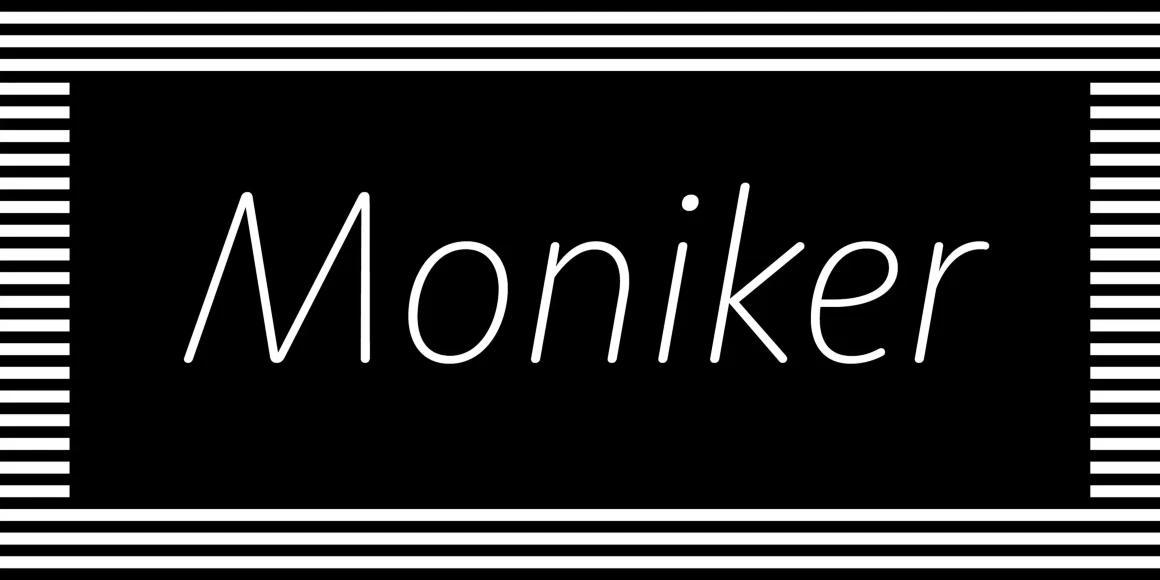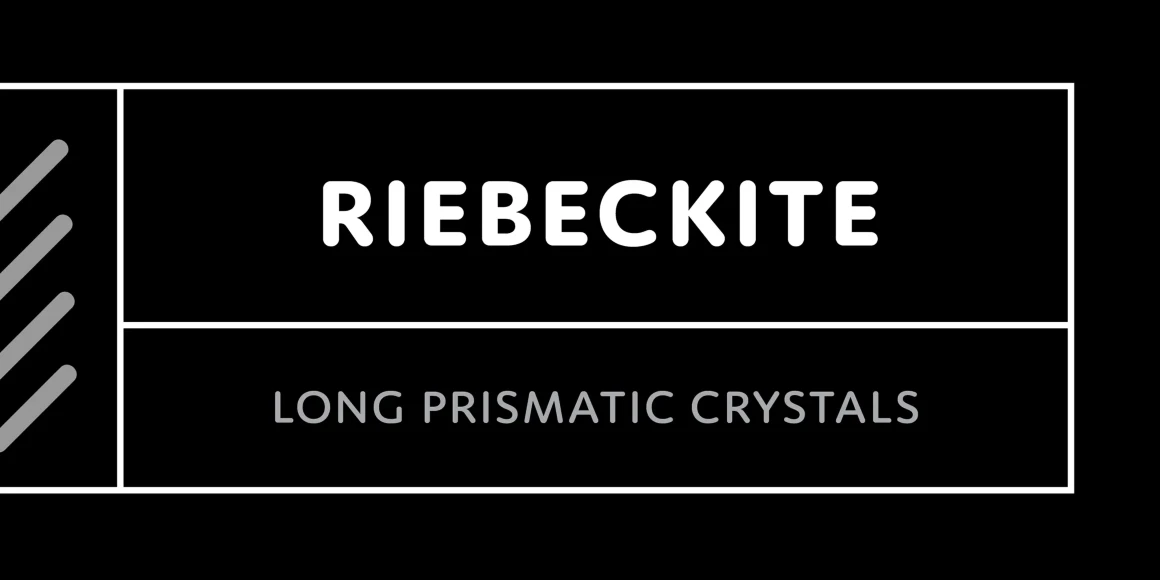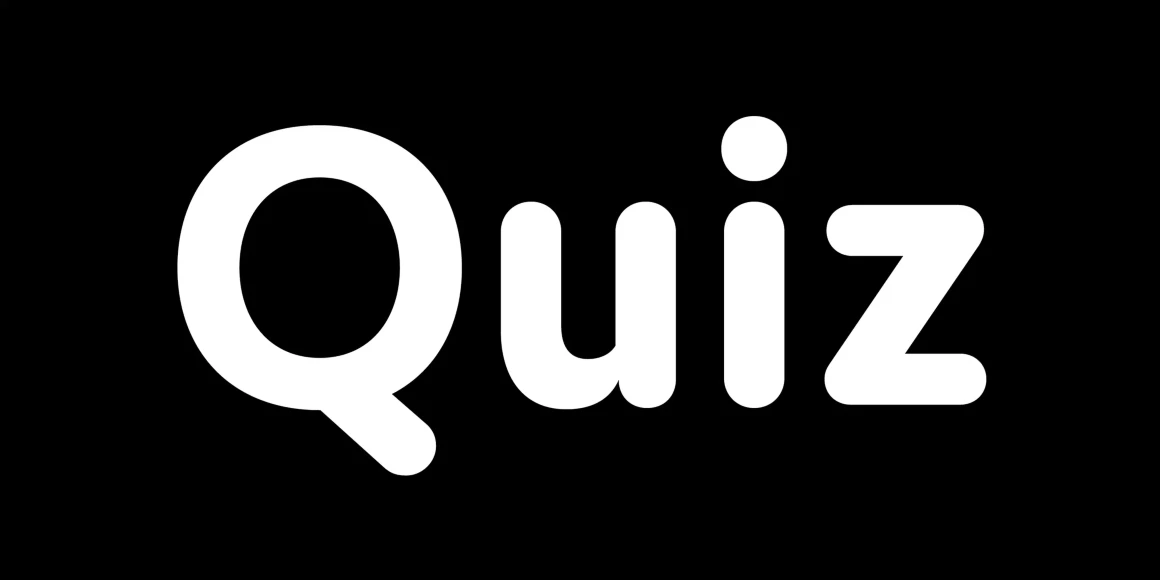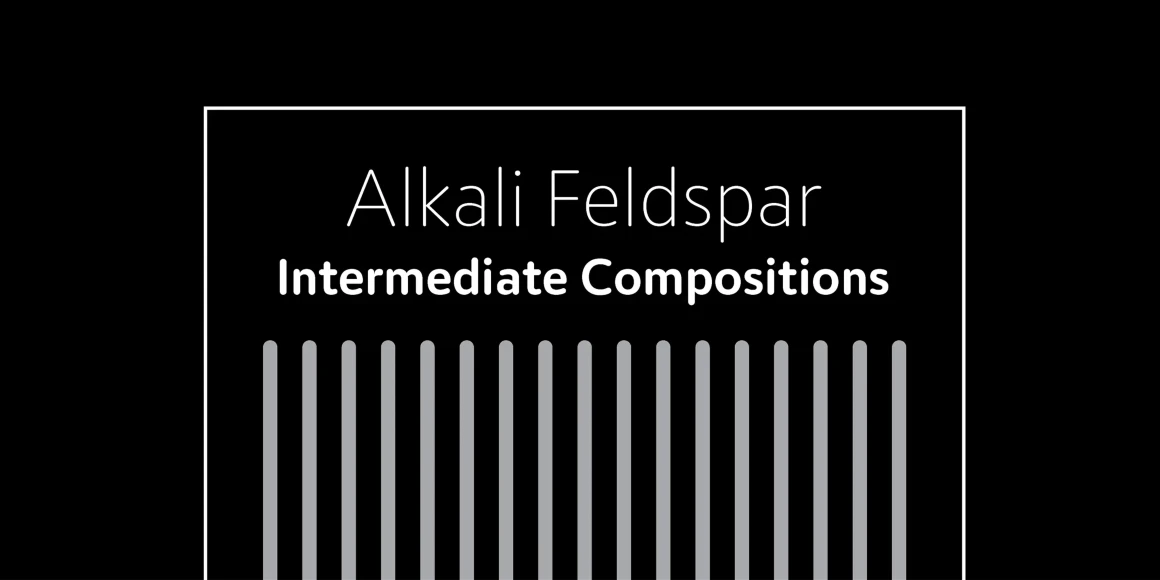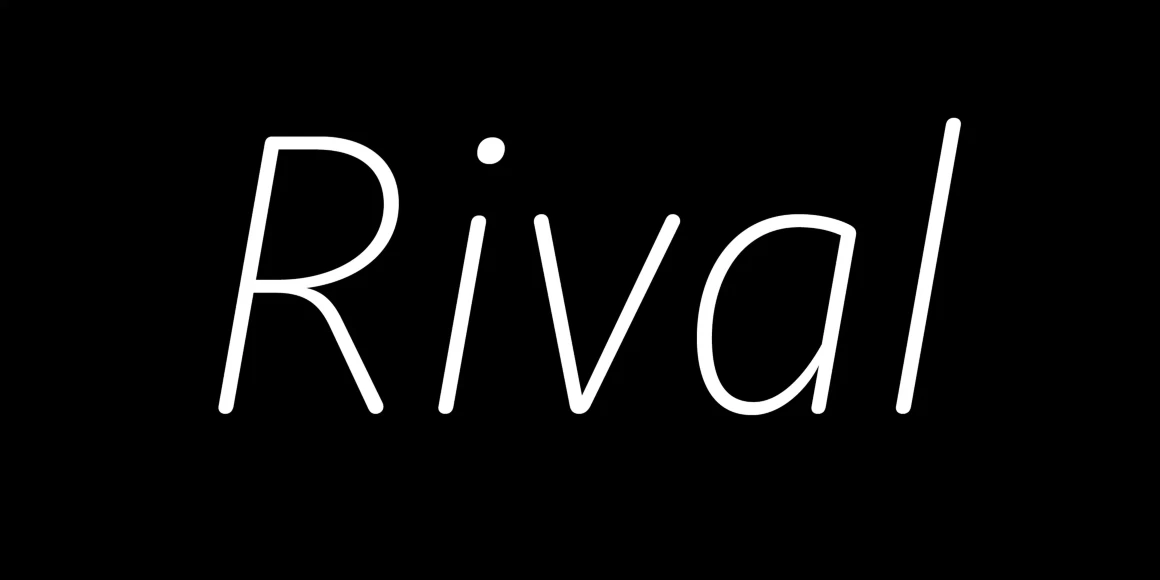
Moniker
From Process Type Foundry
Taking inspiration from the rounded sans serifs of the last 50 years, Moniker captures the informal tone of the genre while building on the typographic possibilities left under-explored. Its open terminations, slightly condensed lowercase and almost classically proportioned uppercase bring a sensible workhorse mentality to an often display-centric style. Continuous running text, charts, graphs and tables can join headlines and decks in communicating a friendly and approachable message. The full family consists of five weights, with lively matching italics and small caps, making it suitable for a variety of design tasks from wayfinding to identity work.
Designed by Eric Olson